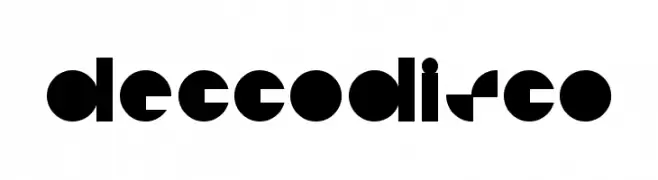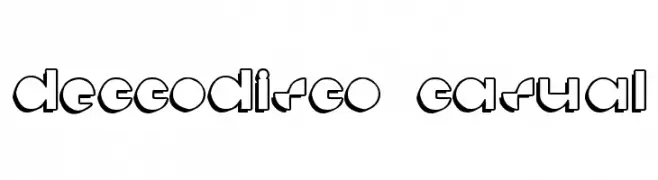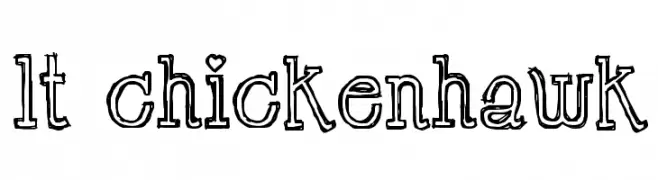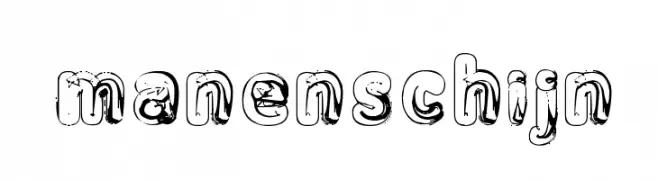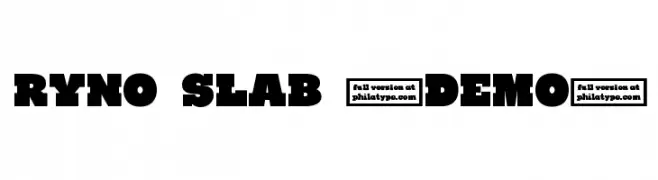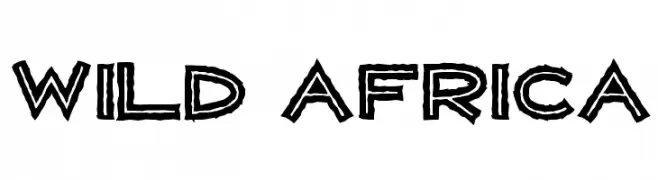
A playful, grunge-style font with bold outlines and textured interiors.
A bold, slab serif font with a strong, impactful presence.
A playful, hand-drawn font with a whimsical and artistic style.
A bold, adventurous font inspired by African wildlife and culture.
A bold, geometric font with a retro-futuristic style.
A bold, geometric font with playful and modern design elements.